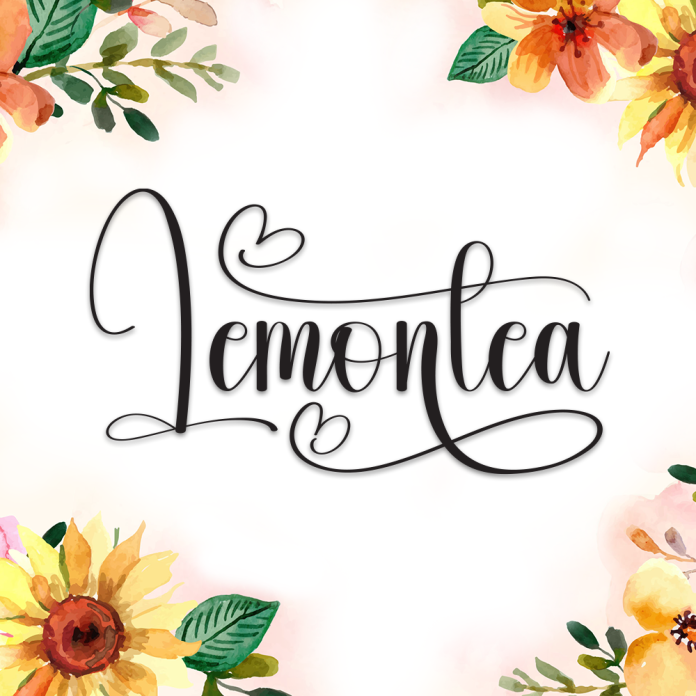
Lemontea is a fresh and charming handwriting font that captures the warmth of a personal touch. With its smooth, flowing strokes and casual elegance, it’s perfect for designs that need a friendly and inviting feel.
Soft and natural handwritten style
Great for quotes, invitations, product packaging, and personal branding
Clean yet expressive letterforms
Add a splash of sweetness to your designs with Lemontea.